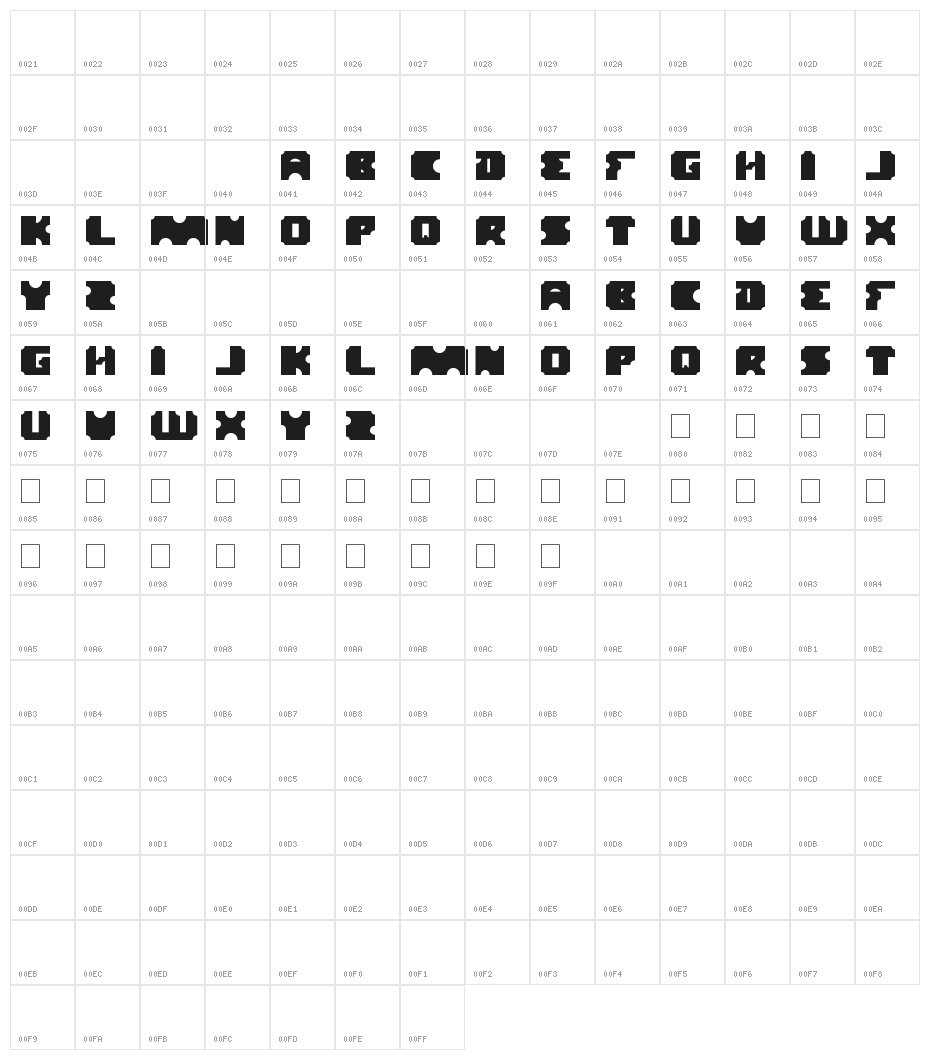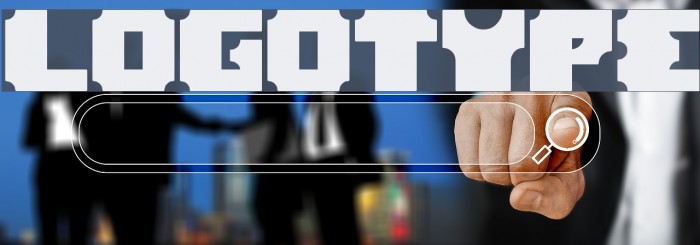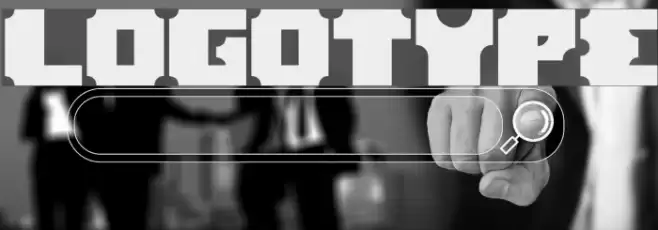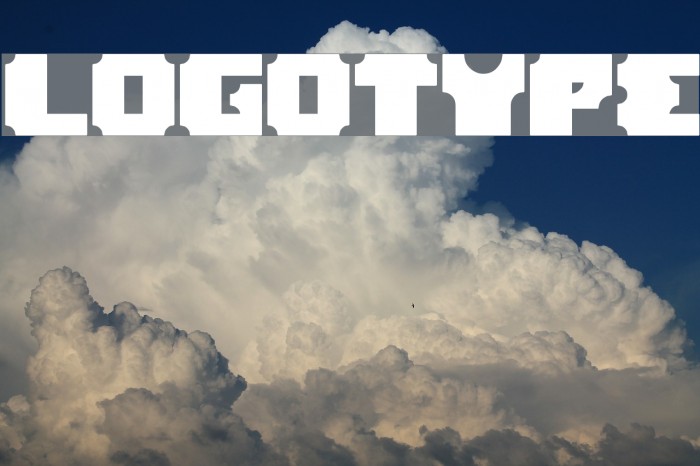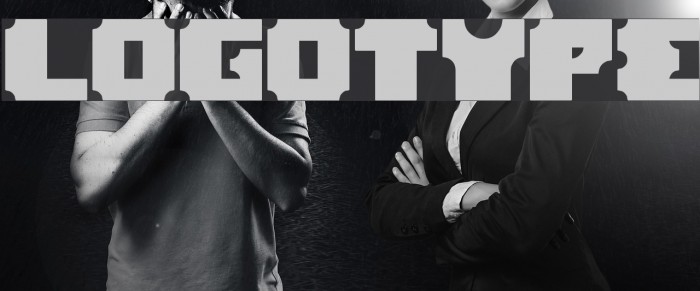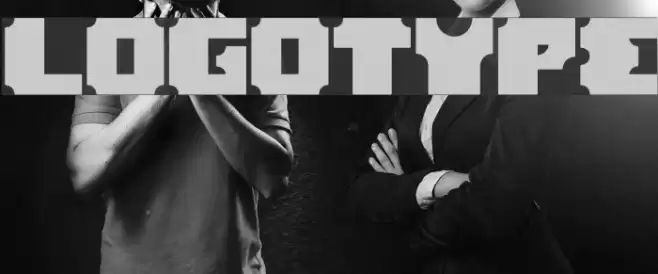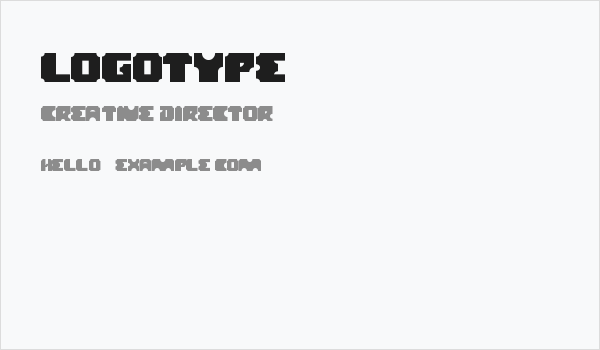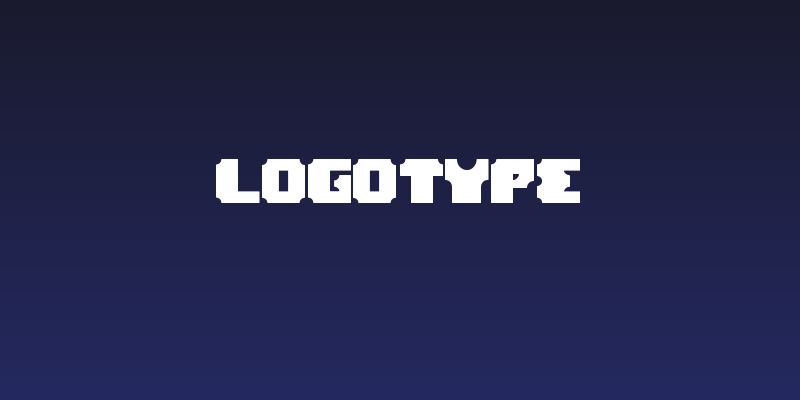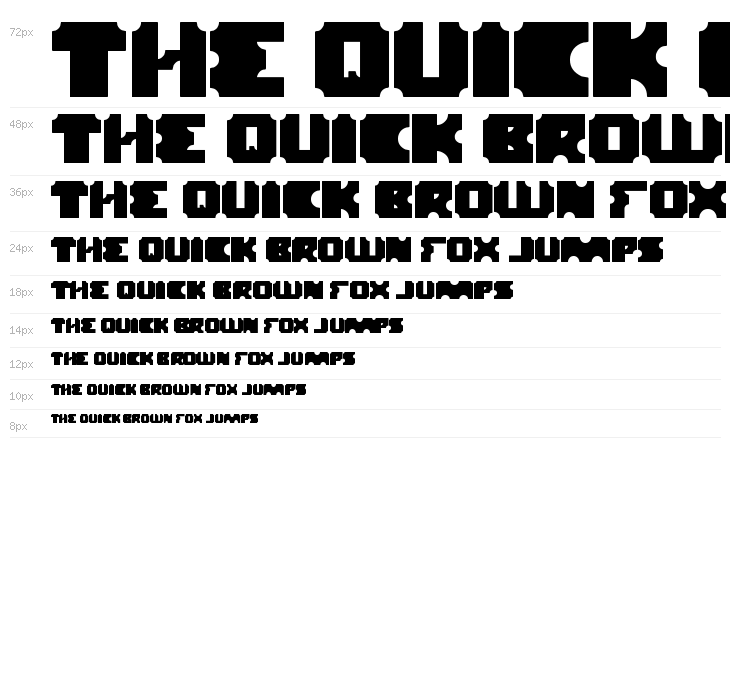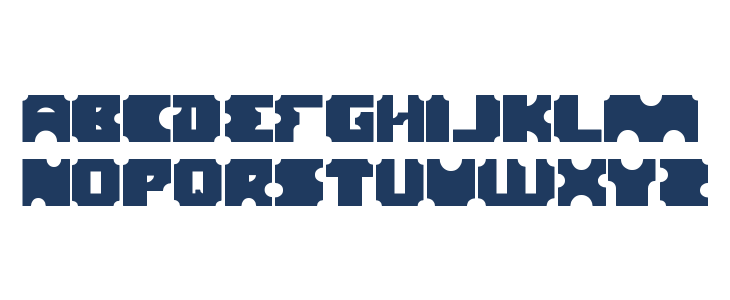
logotype Font
logotype Description
This font features a bold and geometric design with a distinct blocky appearance. Each character is crafted with sharp angles and a uniform thickness, giving it a strong and impactful presence. The font's unique style is characterized by its solid, filled-in shapes and minimal negative space, making it highly legible and attention-grabbing. The uppercase letters are particularly striking, with a consistent height and width that create a cohesive look across the alphabet. This font is ideal for projects that require a modern and assertive aesthetic.
| Proposed Projects | Ideal for logos, headlines, posters, and branding materials that require a strong visual impact. |